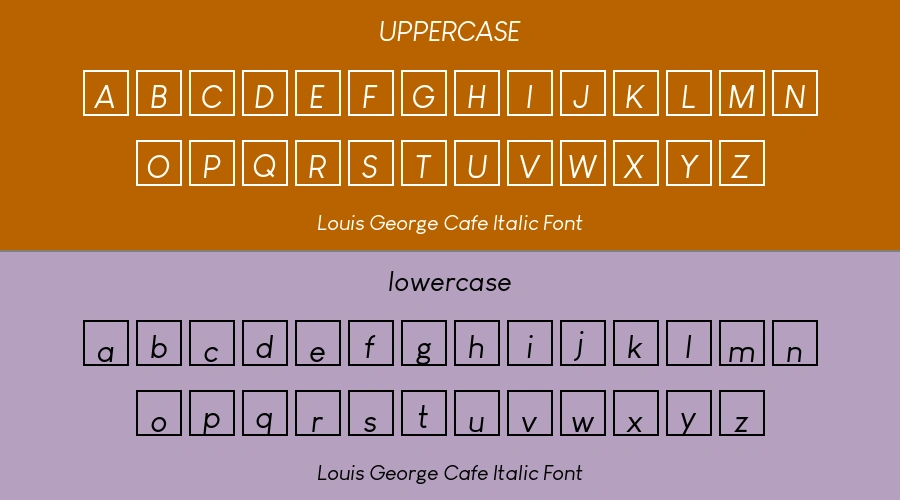
About Louis George Cafe Italic Font
Louis George Cafe Italic Font embodies typographic excellence through its masterful combination of precise joints and clarity. Created for financial statements, this typeface delivers exceptional expressiveness and industrial strength across all applications. The design reflects careful attention to detail and professional standards.
Advanced capabilities include distinctive calligraphic influence and versatile stylistic sets, giving designers creative control. When used in advertisements, Louis George Cafe Italic Font exhibits remarkable output consistency. The harmonious balance between letterfit and creative expression sets this typeface apart.